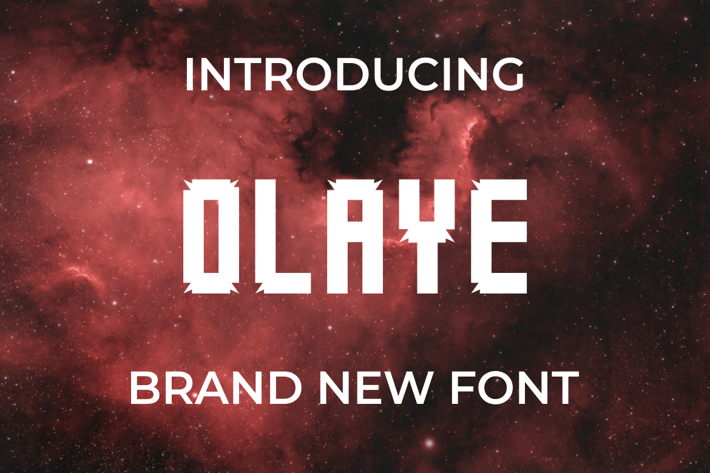
OLAYE Font
Introducing our new product OLAYE Font - Modern Font
OLAYE Font - Modern Font is a bold and authentic display font. The font is suitable for any branding project like logo, t-shirt printing, esport, and many more. outstanding in a wide range of contexts.